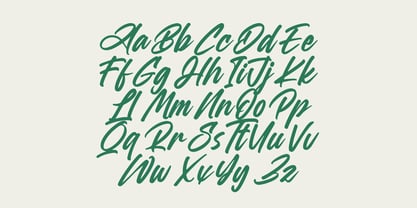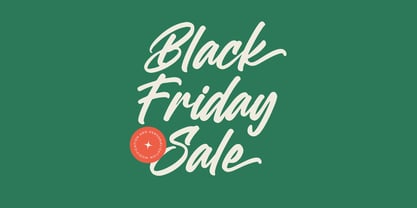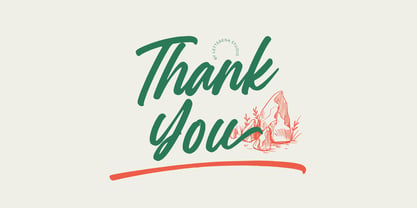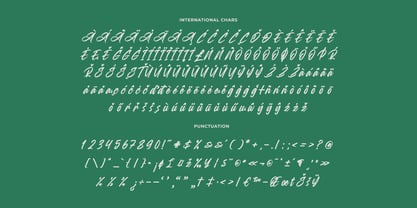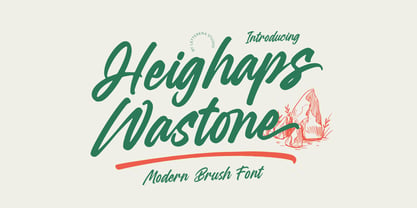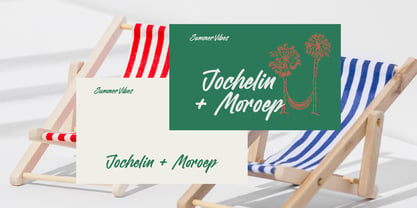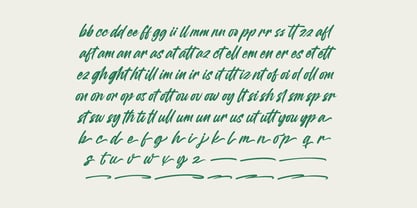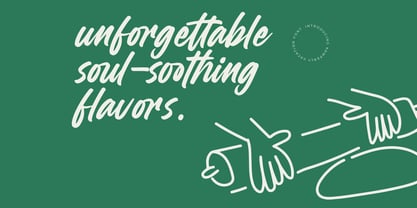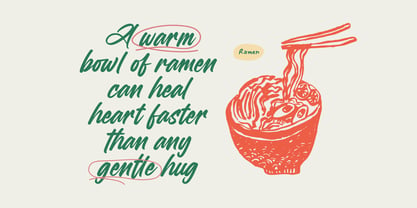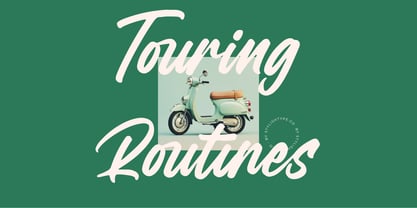
Heighaps Wastone
by Letterena Studios
The Heighaps Wastone Font Family was designed by Heru Utama Putra and published by Letterena Studios. Heighaps Wastone contains 2 styles and family package options. More about this family
Heighaps Wastone is a modern brush font with bold, confident strokes and a natural hand-painted flow. The lettering feels energetic without losing readability, making it great for branding, posters, packaging, apparel prints, outdoor themes, adventure quotes, and anything that needs a lively handwritten punch. The rough, organic edges give it an authentic brush-script attitude-perfect for modern craftsmanship brands and expressive display designs.